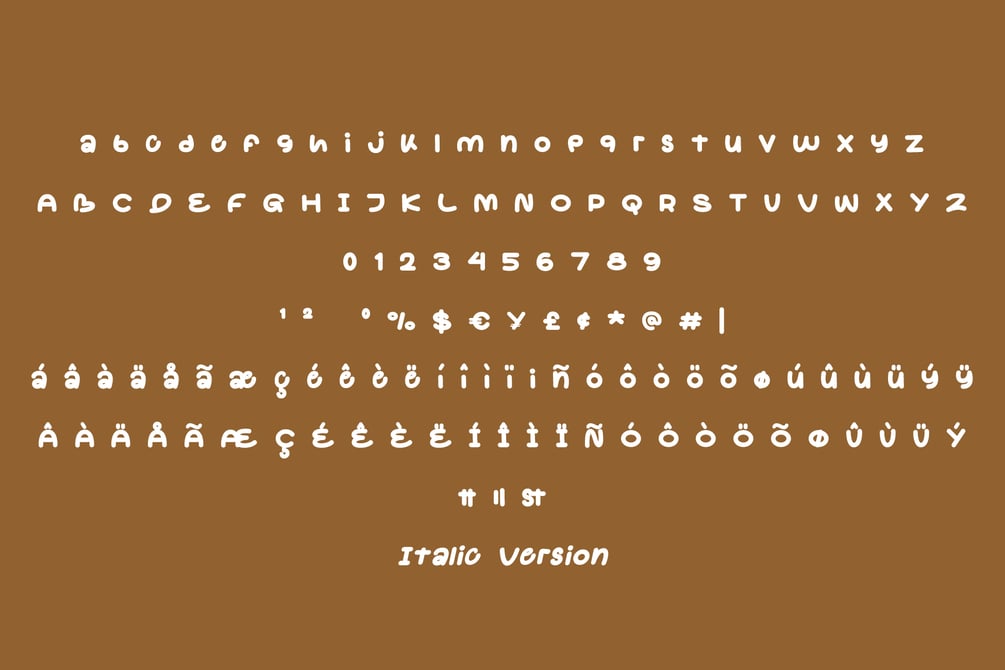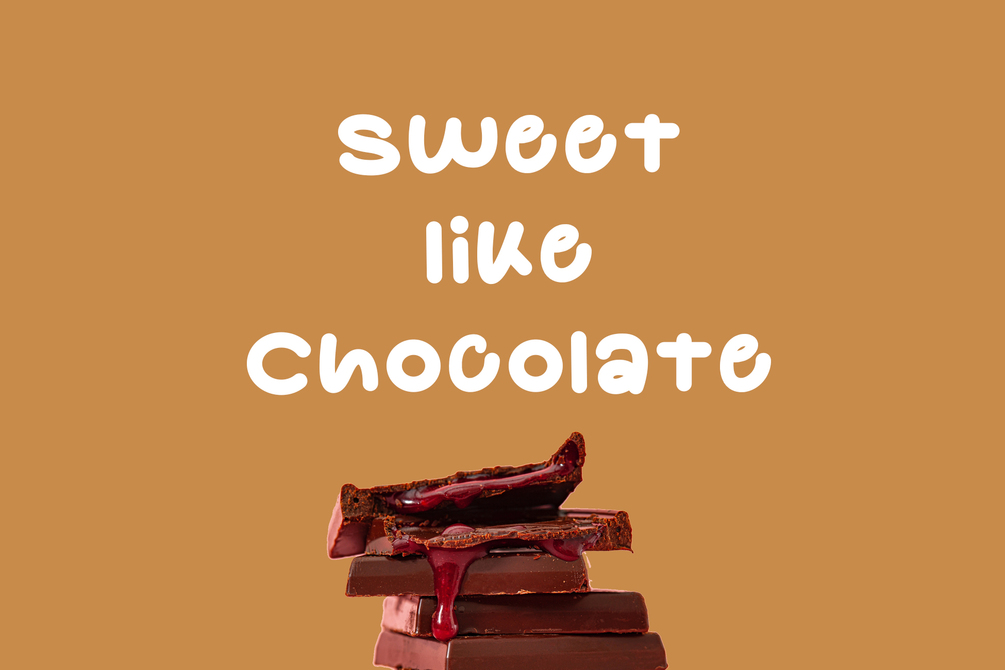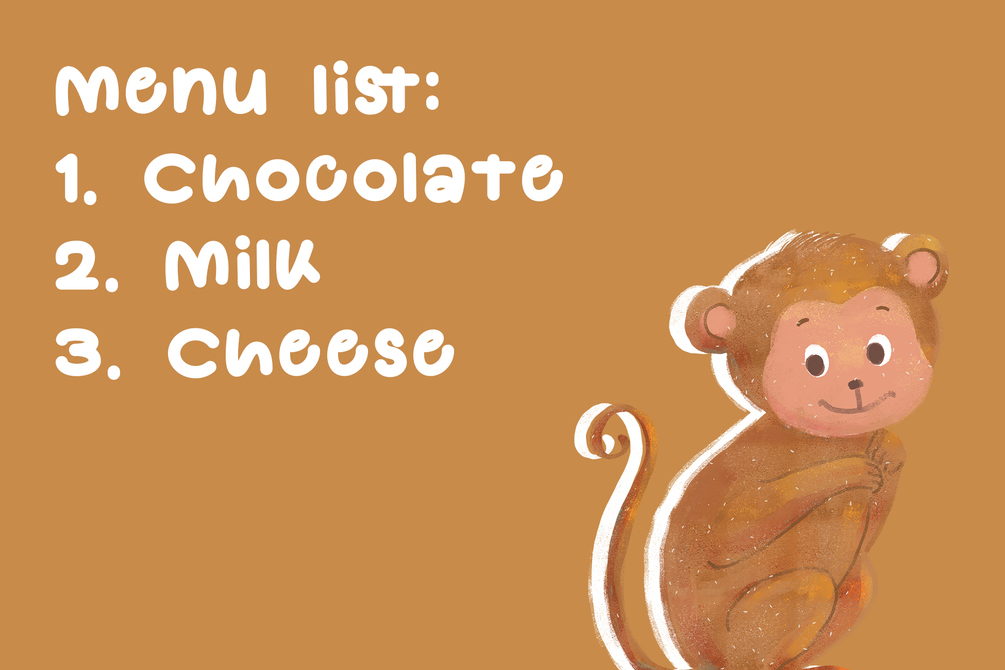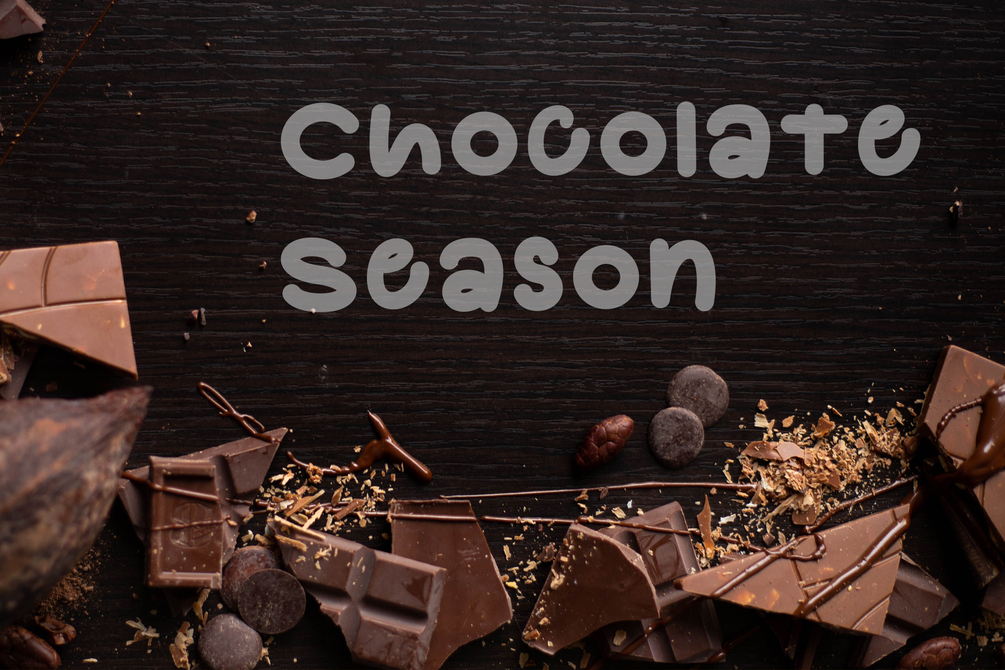
Cokobar Font
Cokobar is a bold display font with a playful style. suitable for social media, branding, craft, products, comic book, and so on. contains standard English letters, numbers, punctuation, and several accents that support multilingualism.
• Italic Version